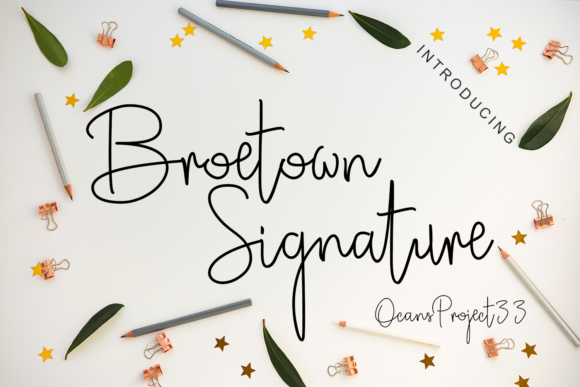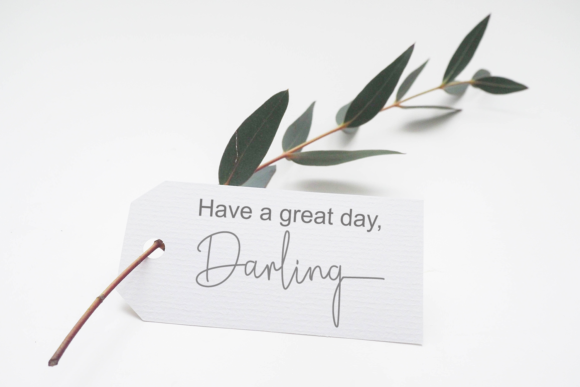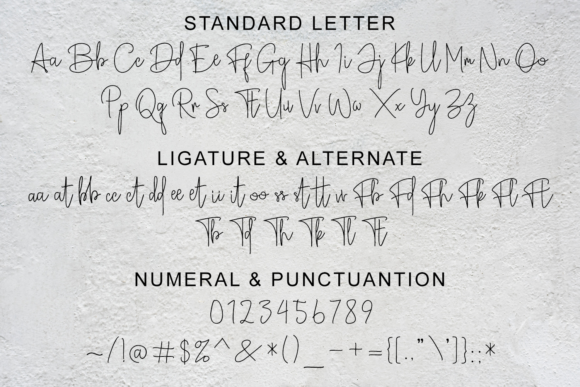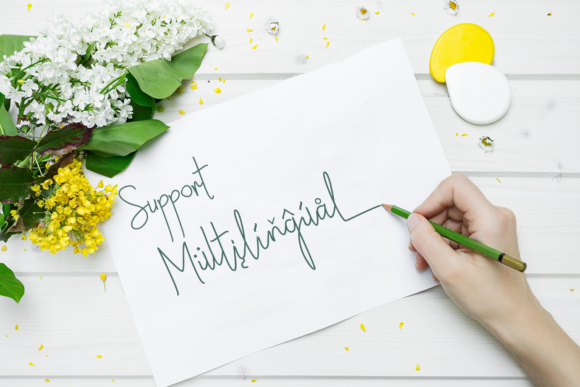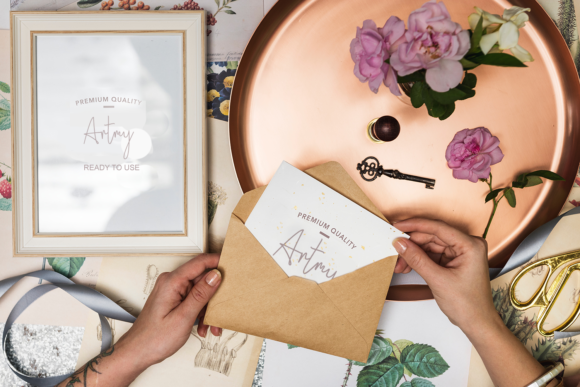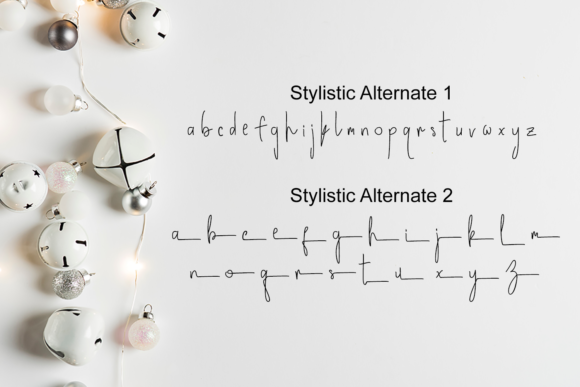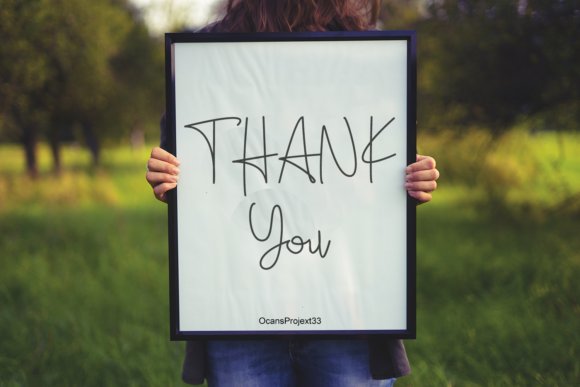
Broetown Signature Font
About Broetown Signature Font
The Broetown Signature is a stylish handwritten script. It’s perfect for adding a classy, modern, and elegant touch to you designs.